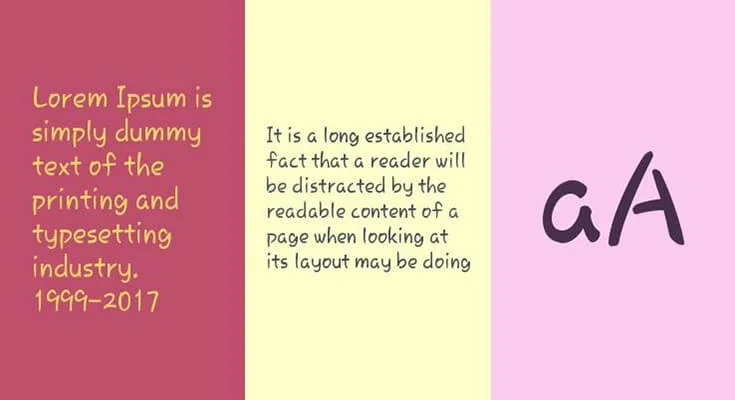
If you’re looking for a soft handwriting typeface with a sweet script design, Rosemary Font is a great choice for you.
This display typeface was created and launched by Yoon Design which is one of the leading foundries for Korean font design.
The designer has created it with bold strokes and made all textures with the hand that’s why it maintains flow naturally.
Rosemary Font consists of two different weights including Regular and Bold. Each weight has 13171 characters along with 1000 units per em.
It can be used for virtually any purpose ranging from posters, flyers, food menus, logotypes, quotes, posters, special cards, t-shirt printing, and other branding materials.